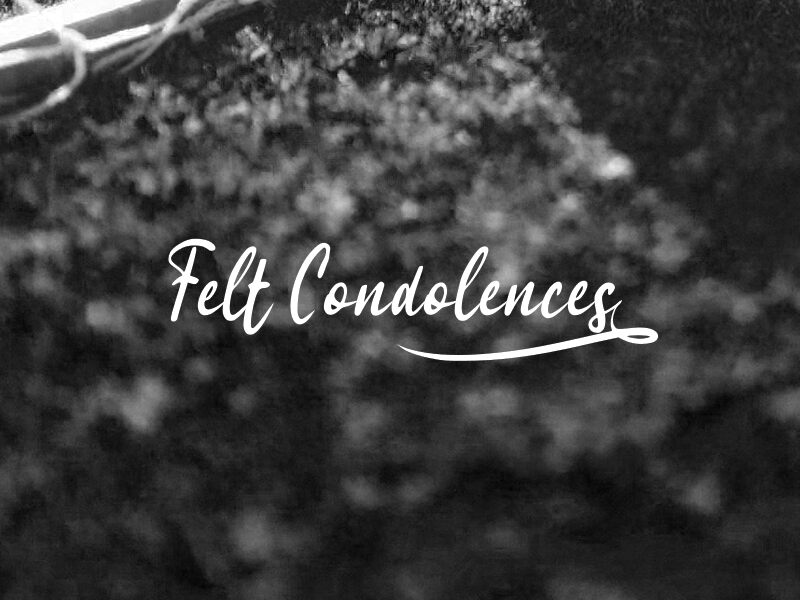
Felt Condolences_
Felt Condolences, envisioned by font designer wep, is a handwritten signature font that encapsulates the essence of personal touch in every curve and stroke. This semi-light, semi-condensed typeface offers an intimate yet readable script that is perfect for projects requiring a bespoke feel.
The elegant flow and distinctive character of Felt Condolences make it an ideal choice for invitations, branding materials, and heartfelt messages where warmth and individuality are paramount. Its versatility shines in both digital and print mediums, inviting designers to explore its potential in crafting narratives with a genuine, handcrafted sensibility.